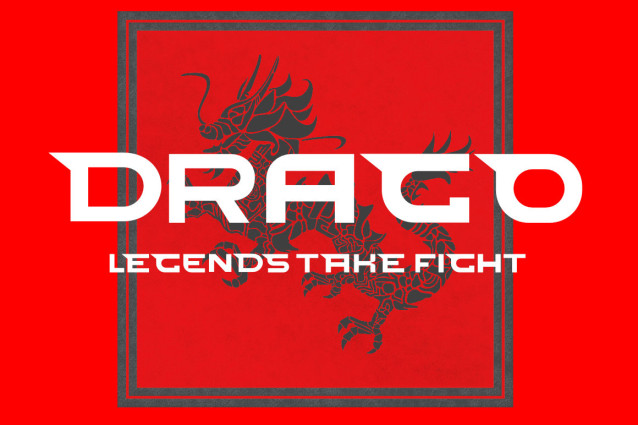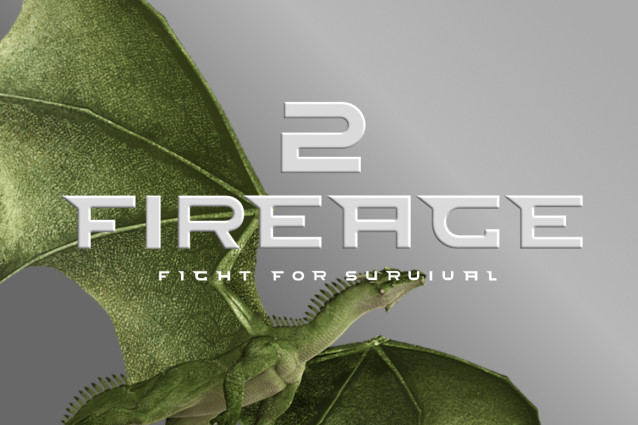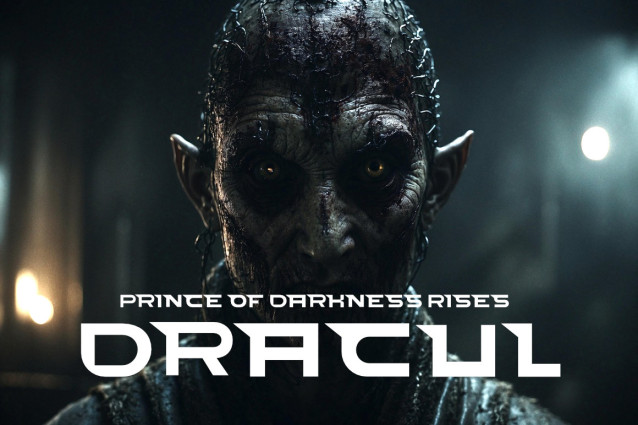
Dynatecha Font
Dynatecha Font is perfect for your upcoming projects such as logo branding, editorial design, e-sport design, 80s retro design, game/gaming industry, sports racing, supercar brand, e-sport branding, music poster, website design, modern advertising design, poster quote, book/cover title, special events, and any more.